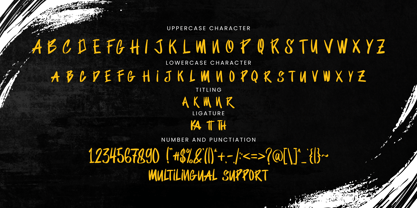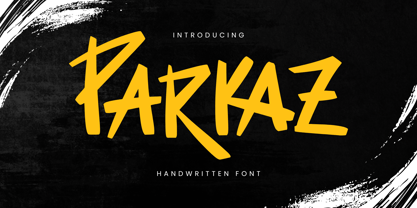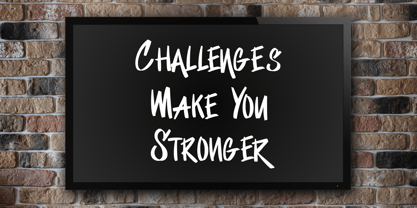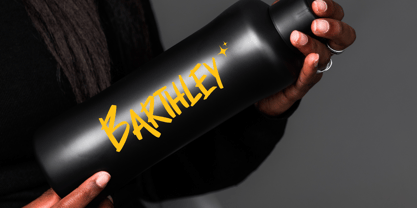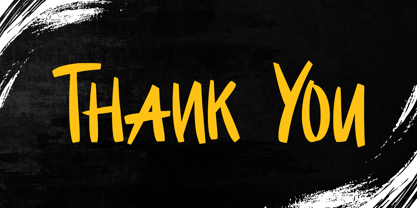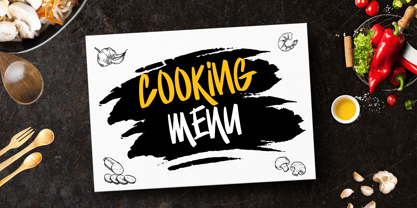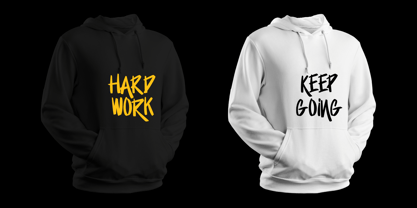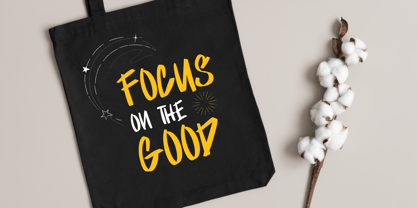
Parkaz
by Sakha Design
The Parkaz Font Family was designed by Alif Ryan Zulfikar and published by Sakha Design. Parkaz contains 2 styles and family package options. More about this family
Parkaz is a beautifully crafted handwritten font, designed to bring elegance and charm to any project. With its smooth curves and natural flow, it enhances both readability and aesthetic appeal. Suitable for a range of designs, including invitations, logos, and social media graphics, Parkaz provides a unique touch that stands out. This font balances sophistication and playfulness, making it versatile for both formal and creative themes. Add character and warmth to any work with the distinctive strokes of Parkaz, a perfect choice for eye-catching typography.
Designers: Alif Ryan Zulfikar
Foundry: Sakha Design